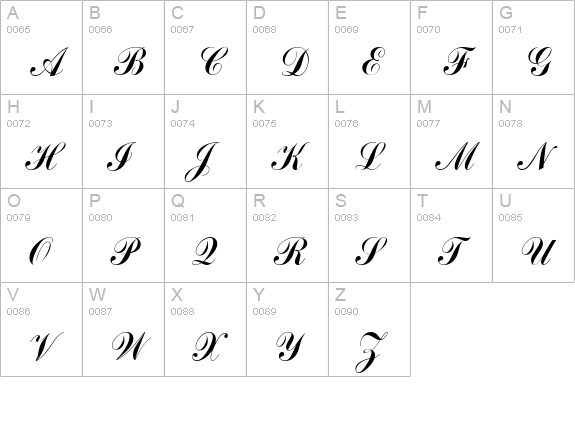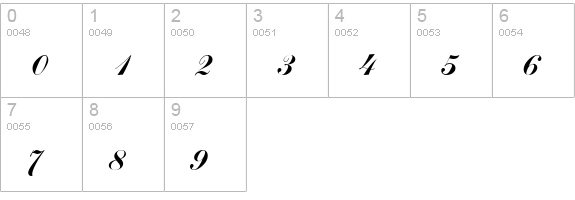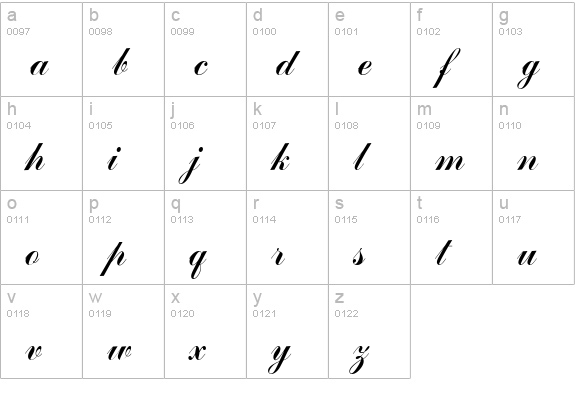
Commercial-Script-Regular is the standard, neutral variant in the Commercial typeface family \xE2\x80\x94 well suited to general body text, paragraphs, and standard typographic work.
Commercial-Script-Regular font exudes elegance and sophistication with its flowing lines and classic appeal. Perfect for adding a touch of refinement to your designs, this font is versatile and suitable for a wide range of projects, from branding to invitations to packaging. The graceful curves and stylish letterforms of Commercial-Script-Regular will bring a sense of timeless beauty to any project. What's even better is that Commercial-Script-Regular is available for free download at FontsMarket.com. Now you can enhance your designs with this exquisite font without any cost. Don't miss out on the opportunity to elevate your projects with the charm and grace of Commercial-Script-Regular font. Download it today and let your creativity shine!